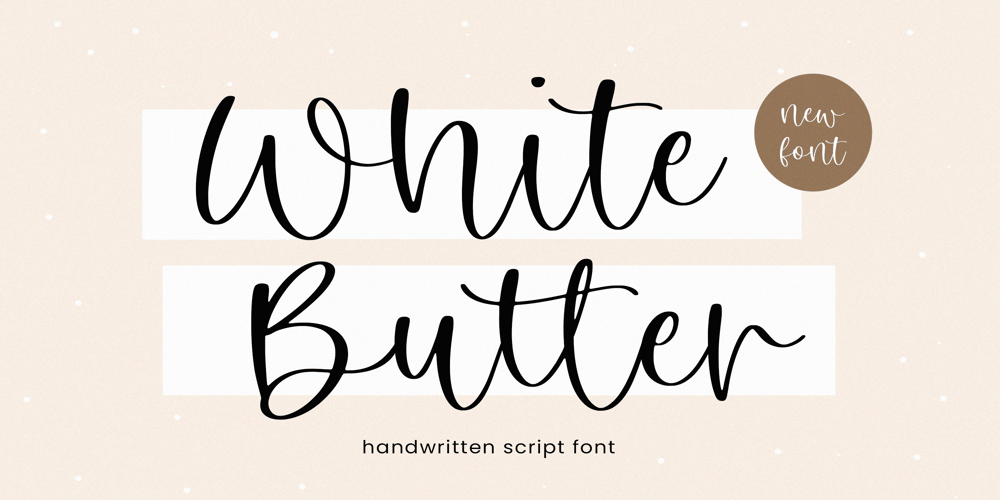
White Butter Font Family was designed by Wara Sigit Tri Pamungkas and published by Timurtype. White Butter contains 1 styles and family package options. Introducing by Timur typeProudly Present, White Butter A Handwritten FontWhite Butter is perfect for product packaging, branding project, megazine, social media, wedding, or just used to express words above the background.White Butter also multilingual support.Enjoy the font.Thank you!